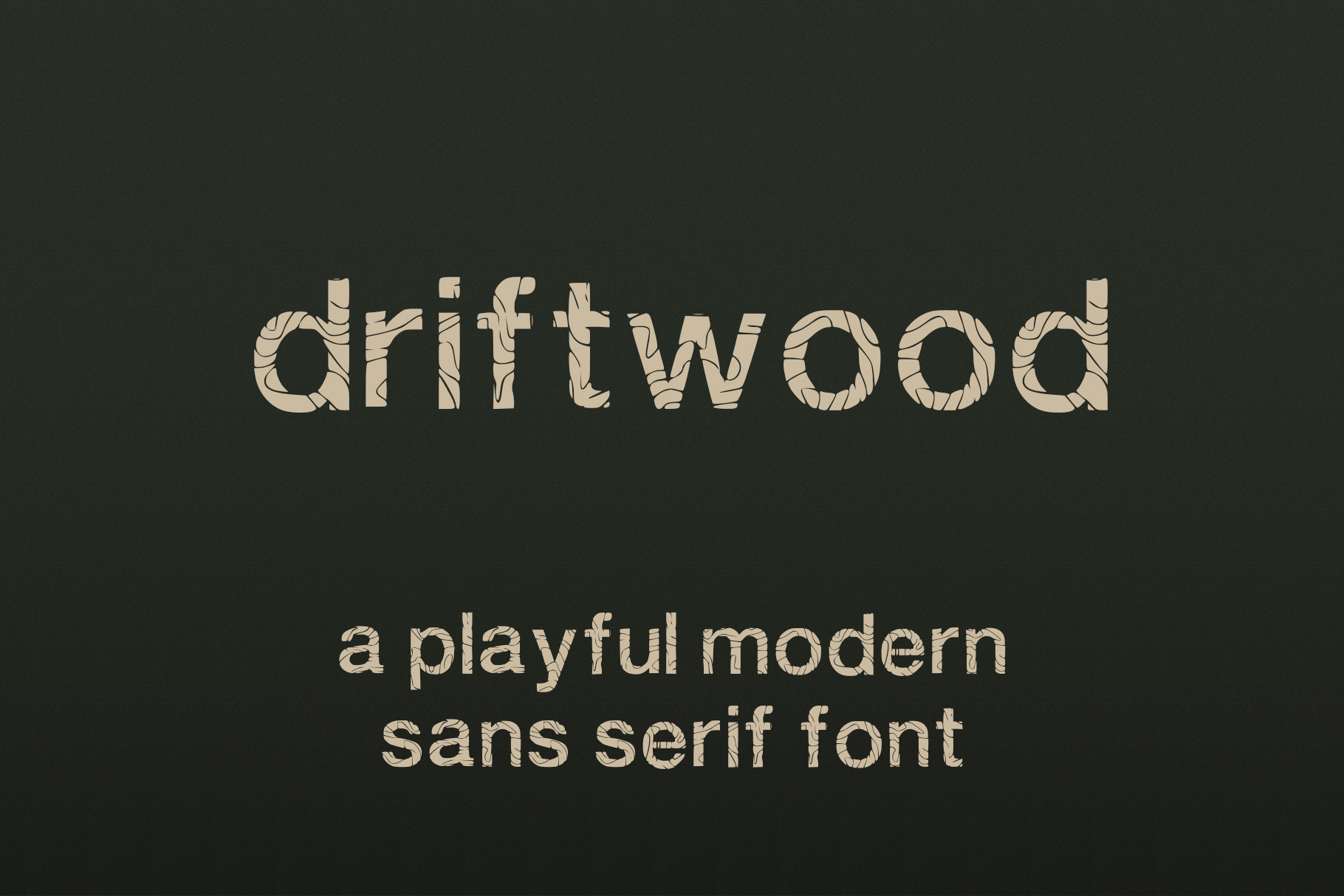
Driftwood Font
Driftwood - A Playful Typeface
Driftwood is a gorgeous sans-serif typeface that is both strikingly modern and inherently creative. Create beautiful designs, use it as an elegant solution for your next project, or choose Driftwood for any graphics that require a sleek modern look with a fun flair.
Uppercase Characters Lowercase Characters Punctuation Marks (See photo to see all characters in this font).